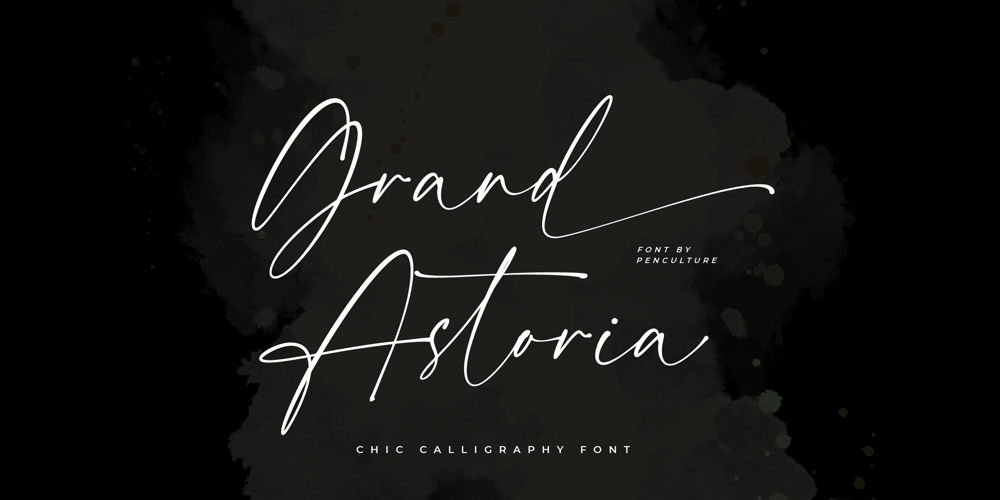
Grand Astoria
Grand Astoria font
Grand Astoria Font Family was designed by Revo Farsiky and published by Pen Culture. Grand Astoria contains 1 styles and family package options. Introducing “Grand Astoria – Chic Calligraphy Font”It’s a modern chic calligraphy font with natural handwriting. This font perfect for branding, logo design, wedding, invitation and many more. Grand Astoria come with authentic uppercase and lowercase, number and punctuation, beginning and ending swash, lovely ligature.I really hope you enjoy it – please do let me know what you think, always hugely welcomed and appreciated.Thank you